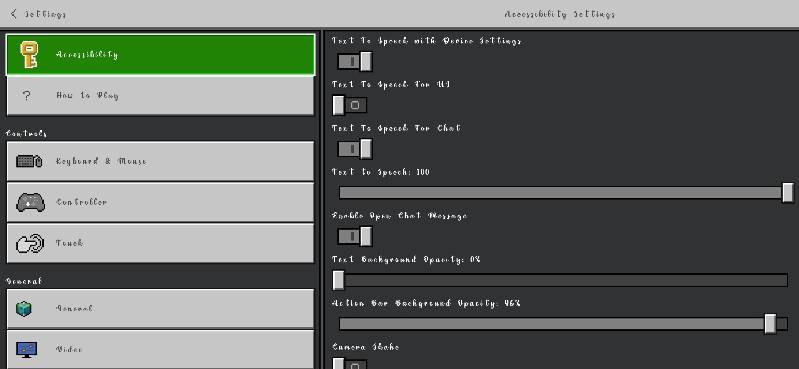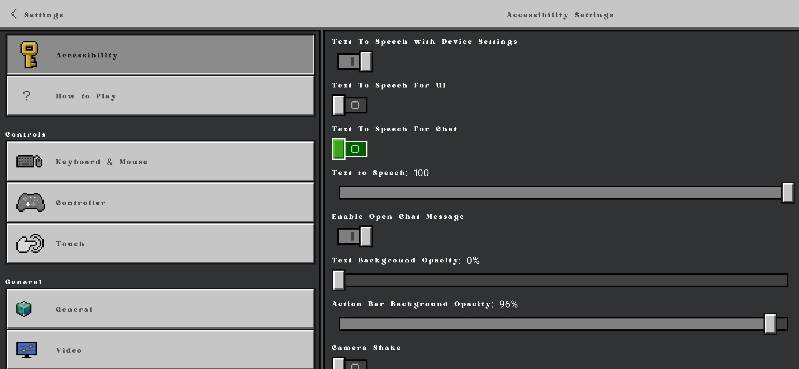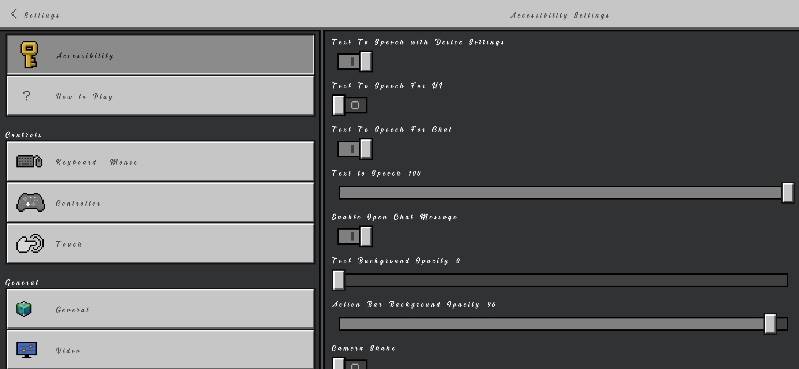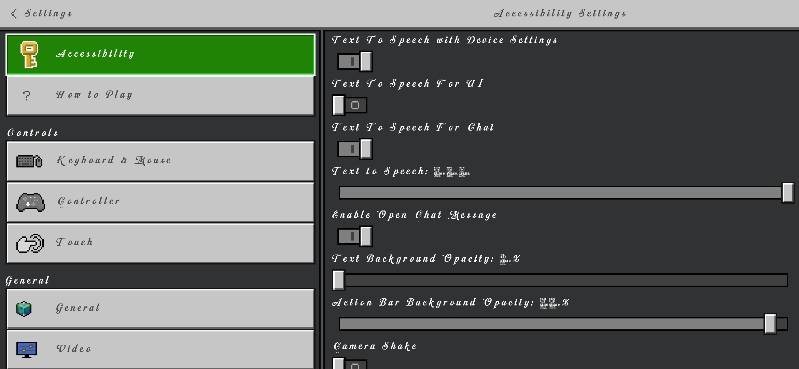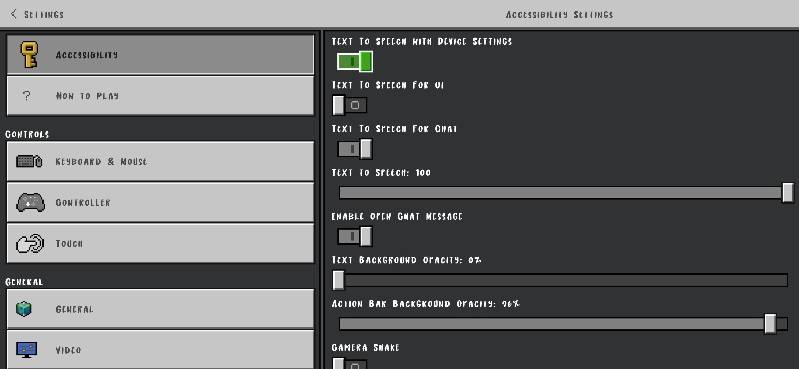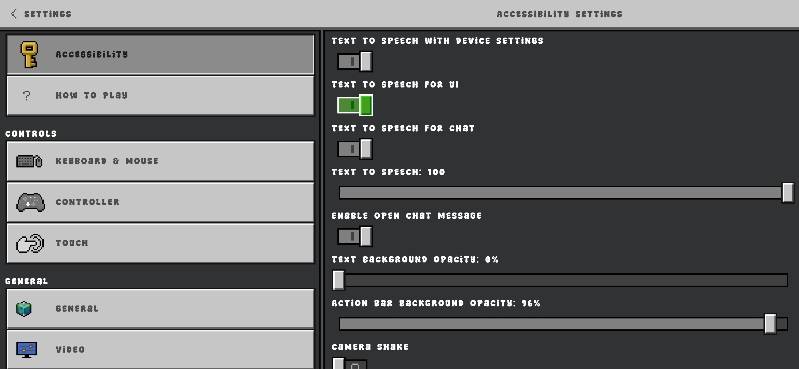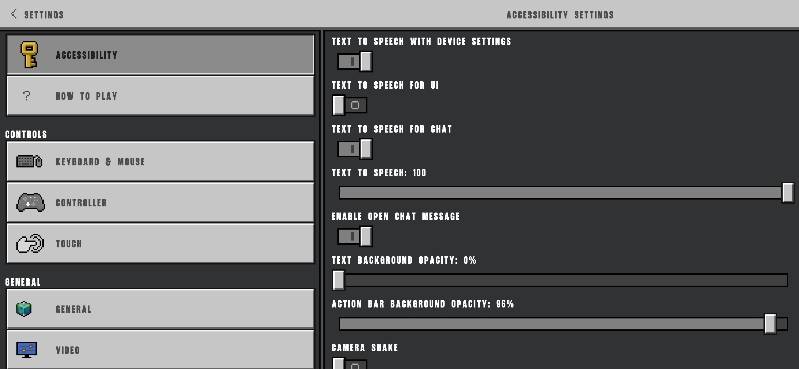
Stylish Fonts Texture Pack (26.x, 1.21) – MCPE/Bedrock
Stylish Fonts Texture Pack adds 15 unique typefaces. Designed to make your in-game menus, chats, and interfaces stand out with a modern look. The pack includes minimal, clean, bold, and stylish typography.